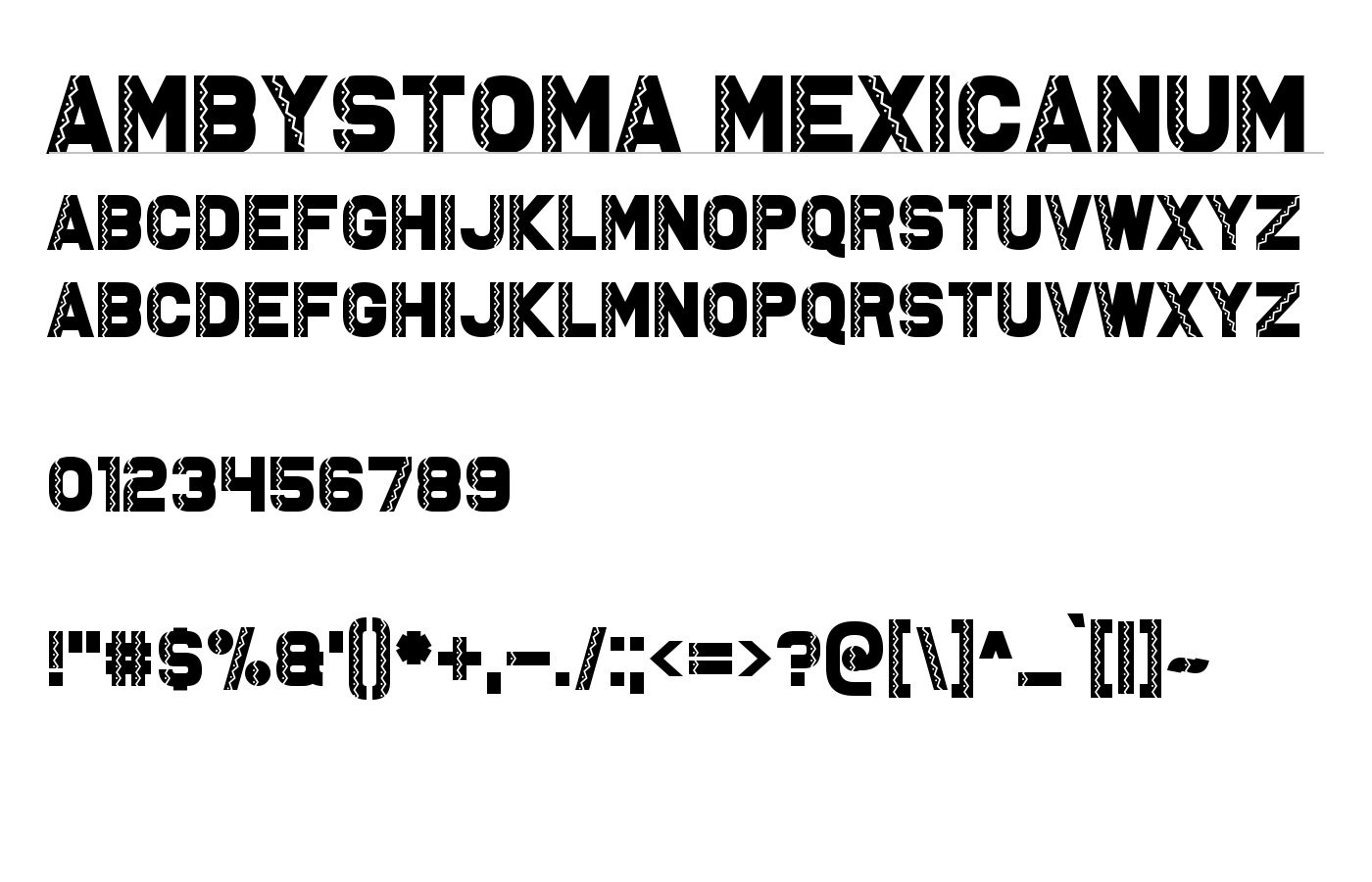
Ambystoma Mexicanum is a bold, uppercase display font with a strong geometric structure and distinctive zigzag patterns within each letter, evoking a playful, tribal, and cultural aesthetic. Its heavy weight and tight spacing make it ideal for eye-catching headlines, logos, and packaging that seek to convey energy and uniqueness with a nod to traditional Mexican design elements. This font works best in creative projects where a dynamic and memorable impression is desired.
Ambystoma Mexicanum Font
About Ambystoma Mexicanum Font